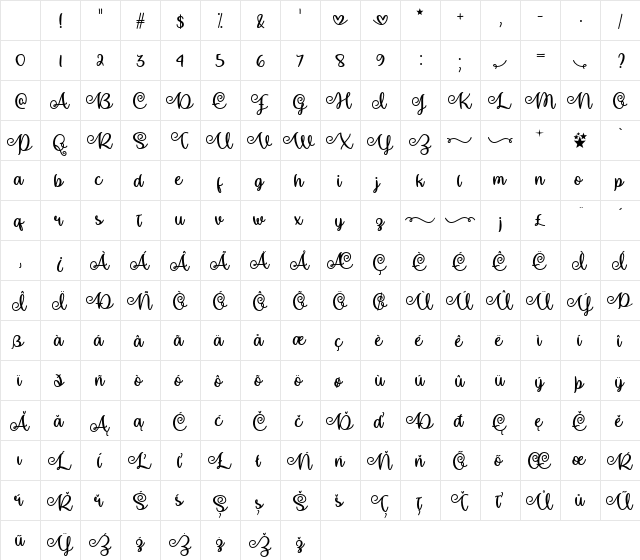
Make Magic Happen is a composed and adaptable typeface that performs quietly and consistently across a wide range of design contexts.
Pro Tip: Use Make Magic Happen in both headline and body roles to test its range before committing to a single application.